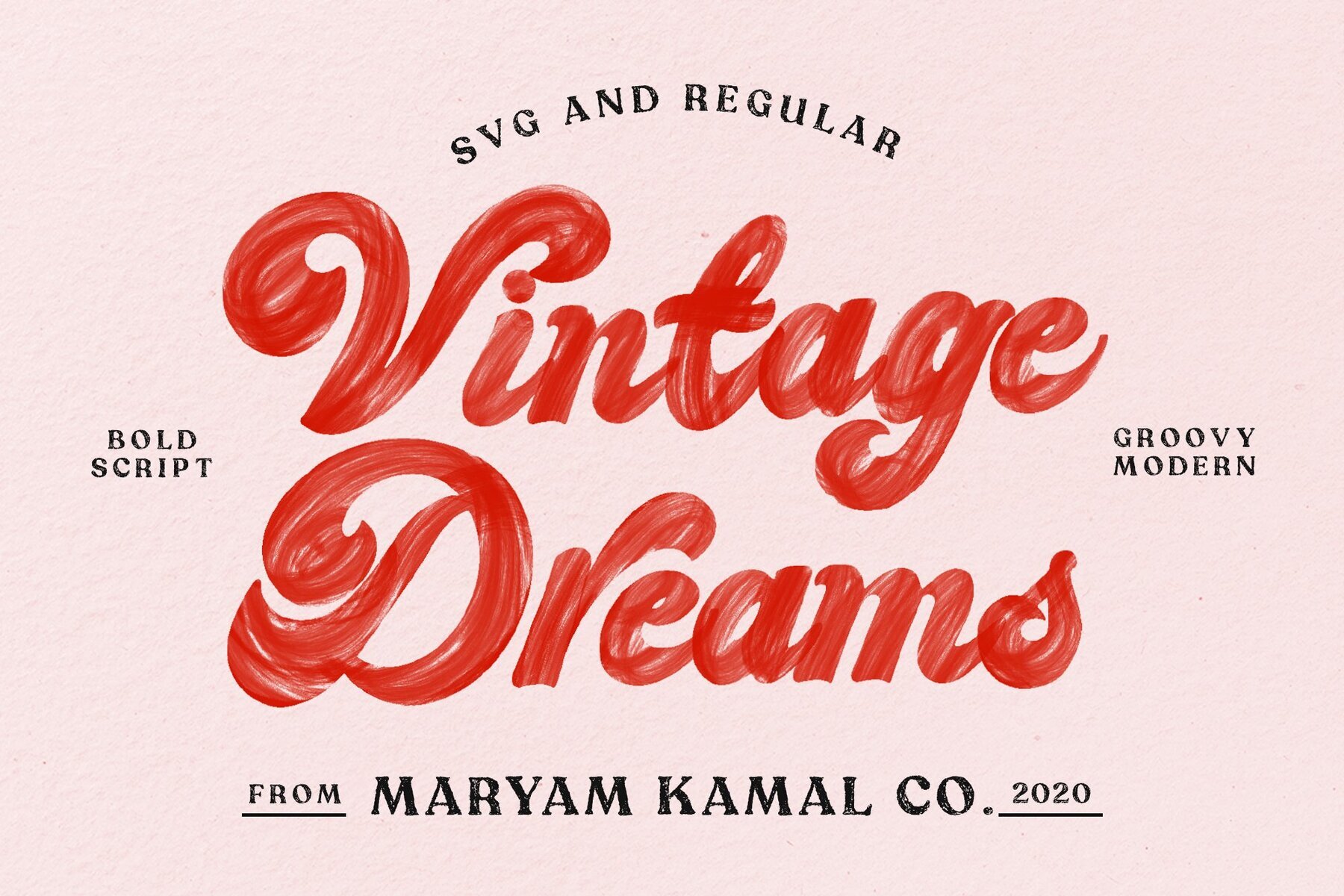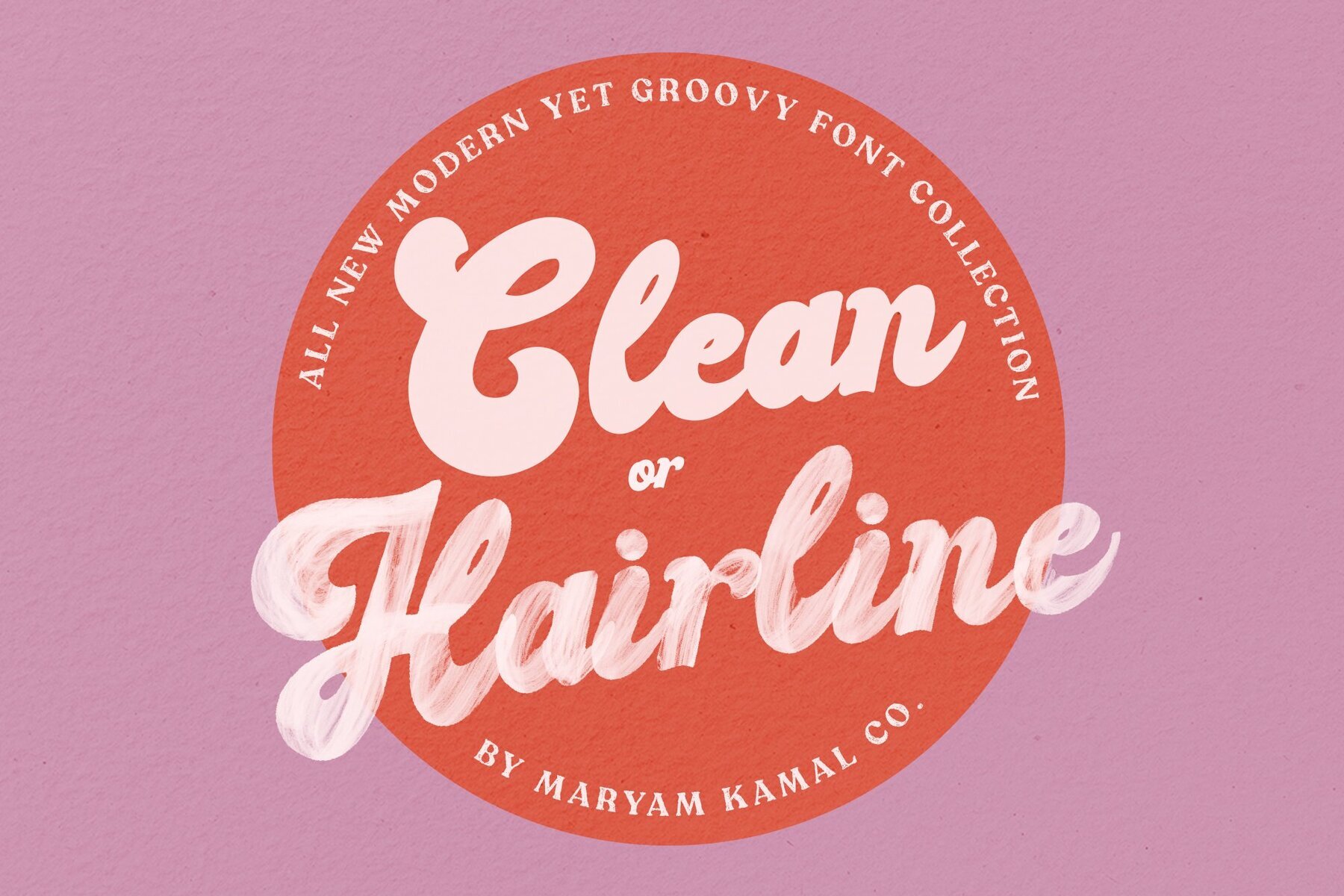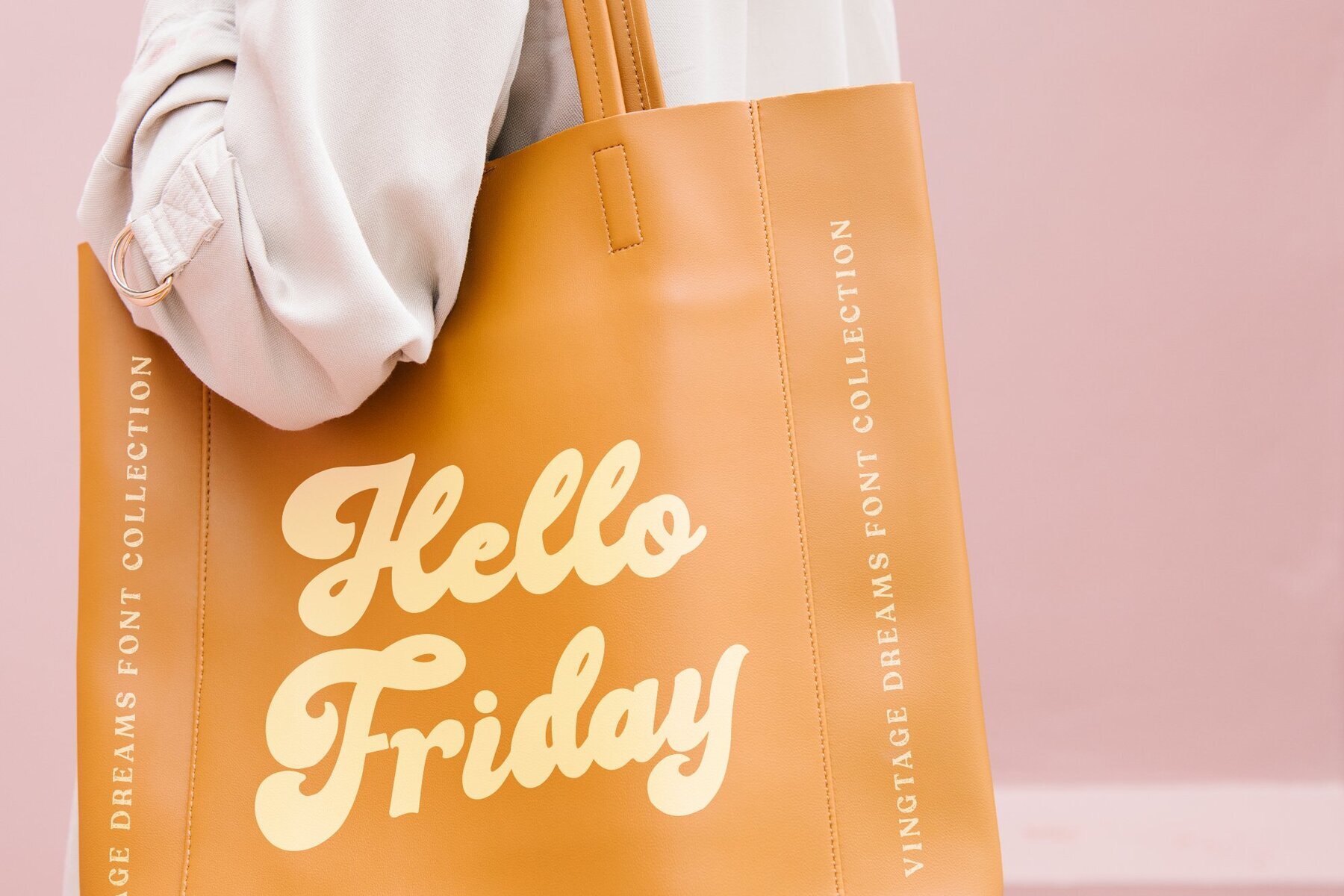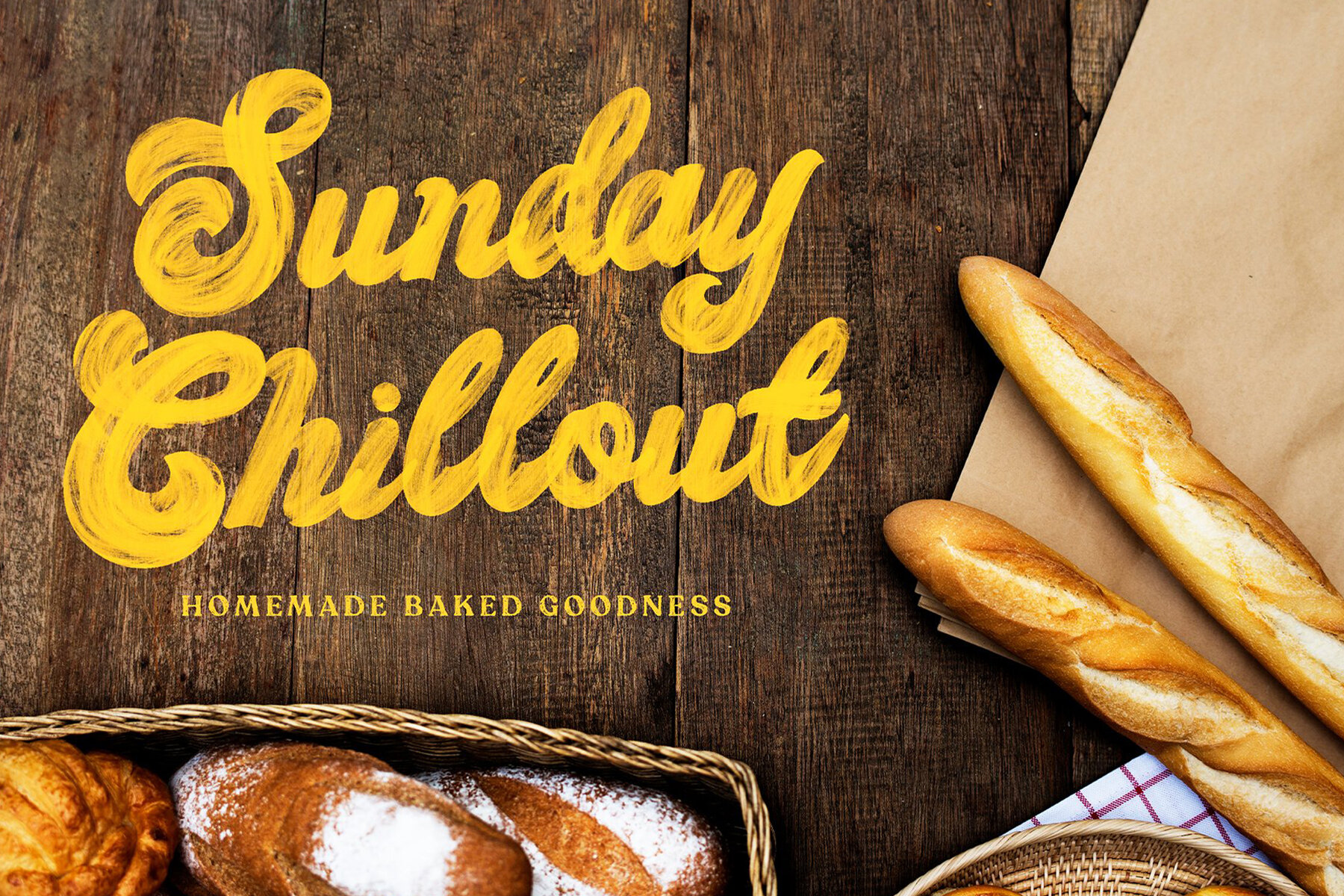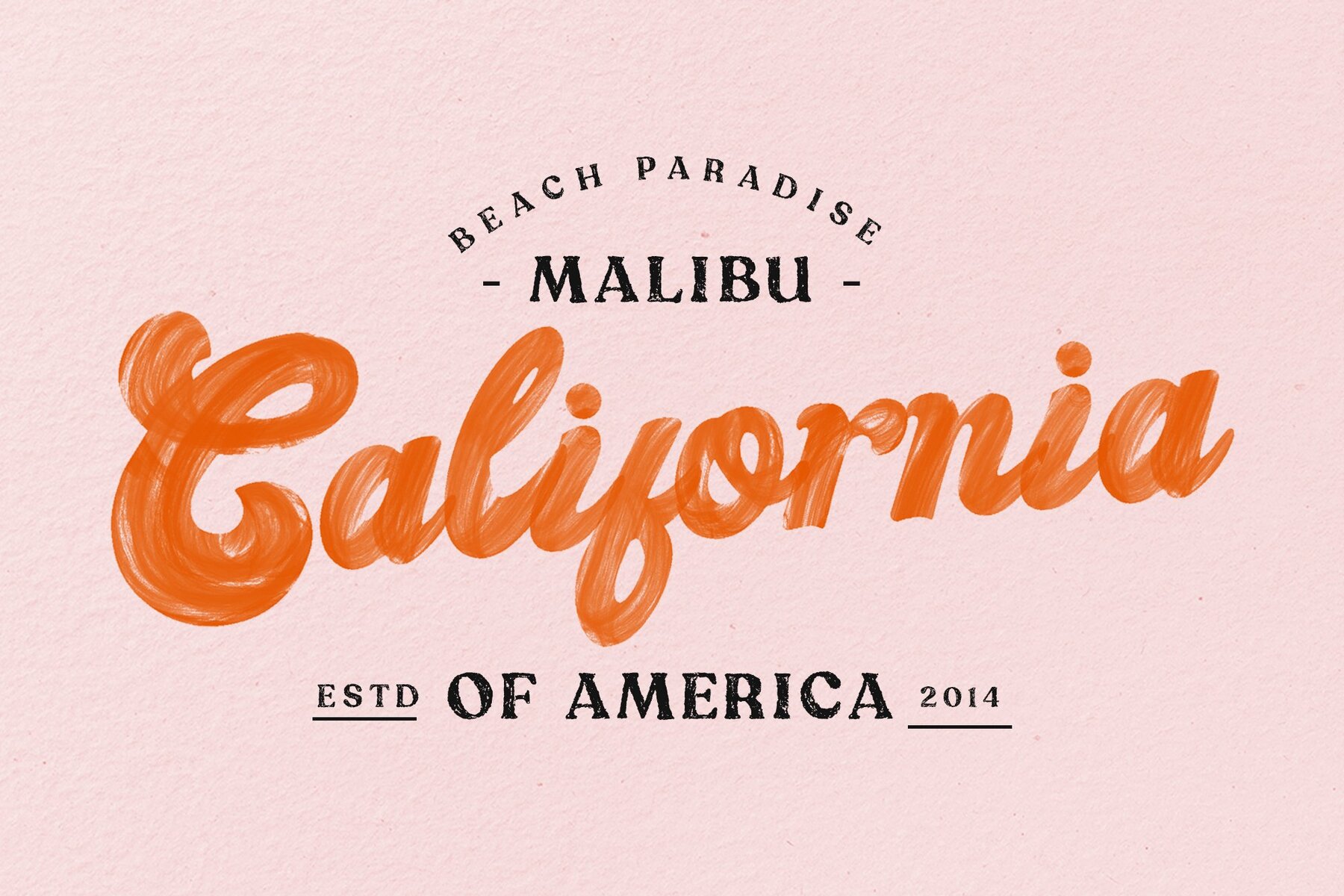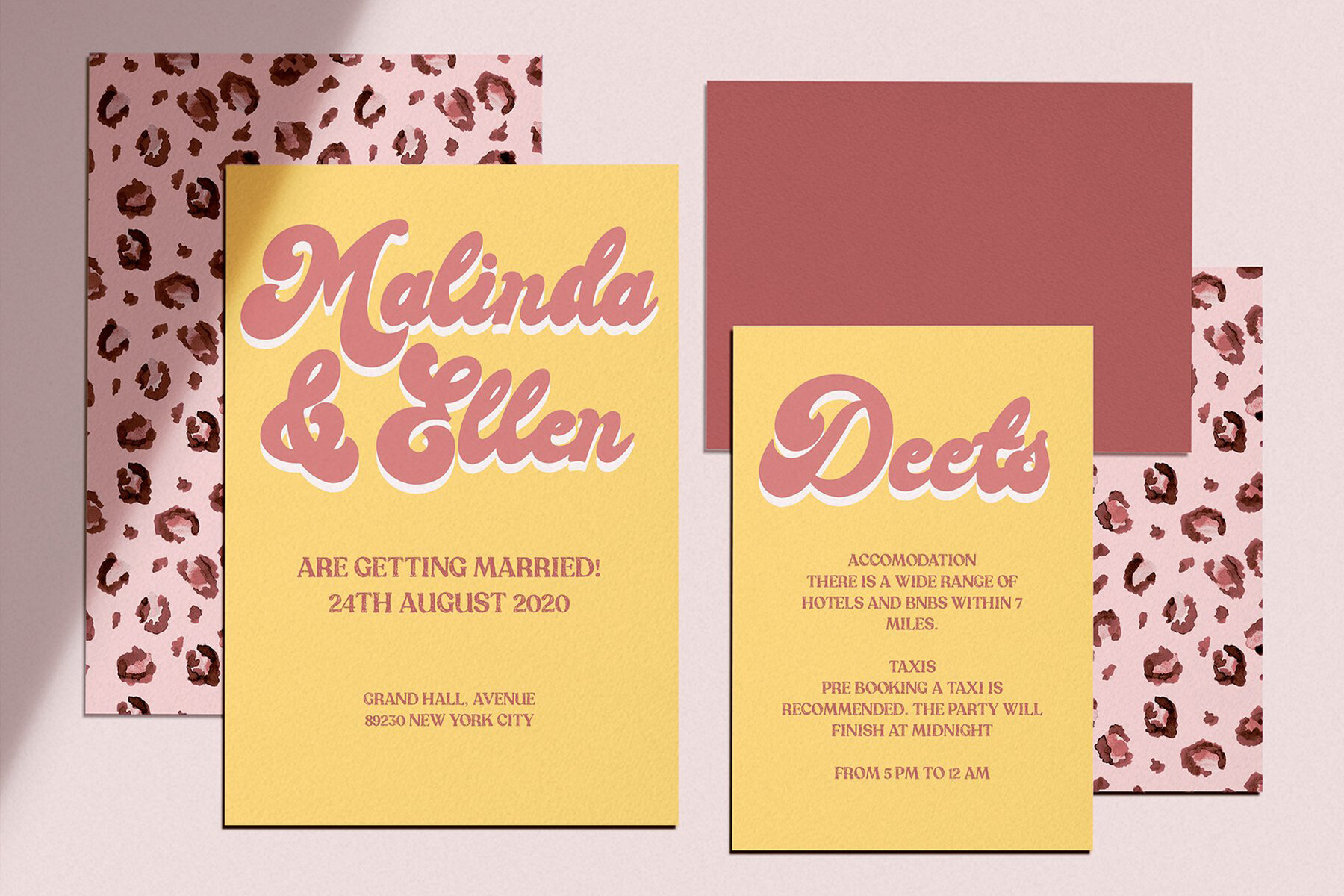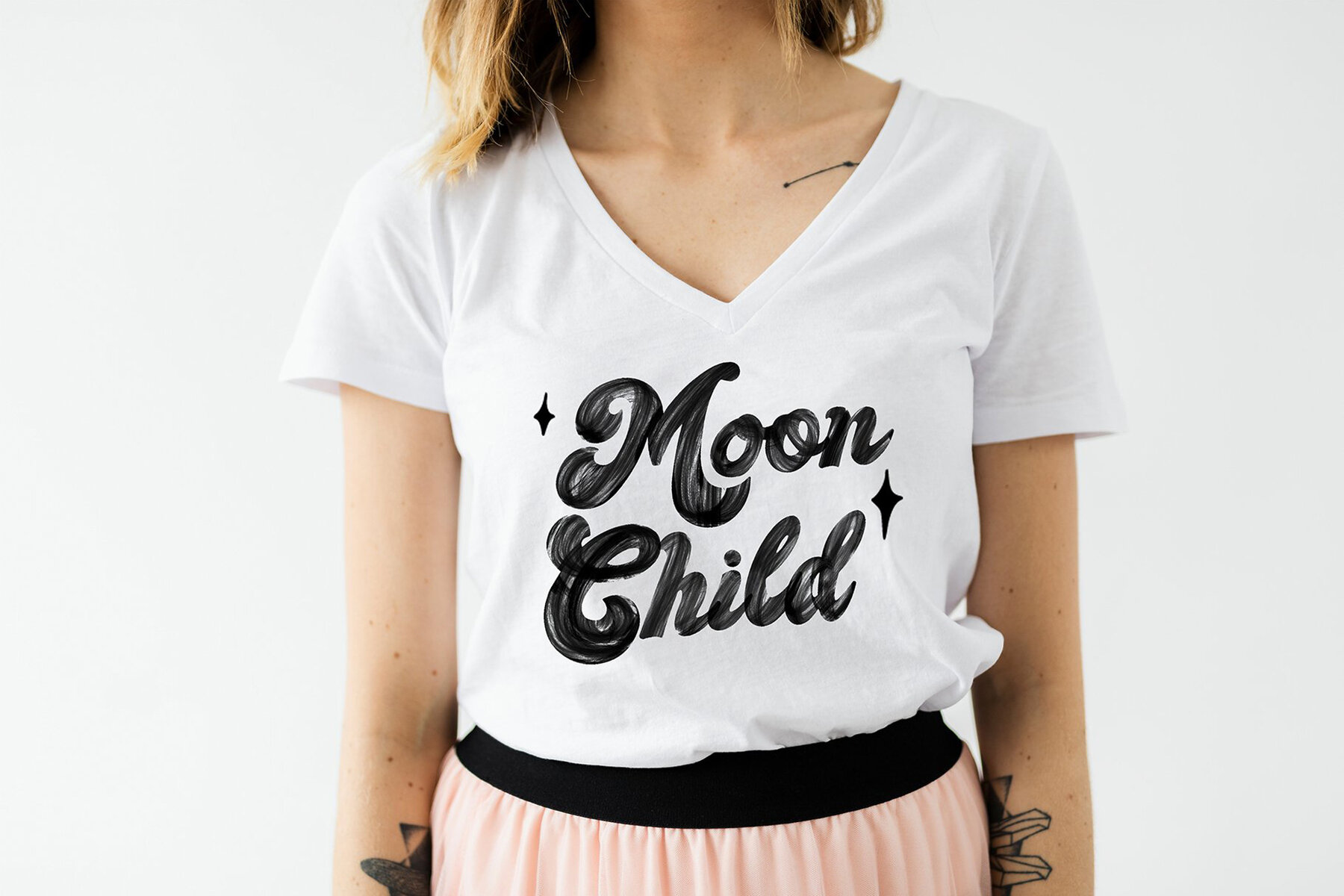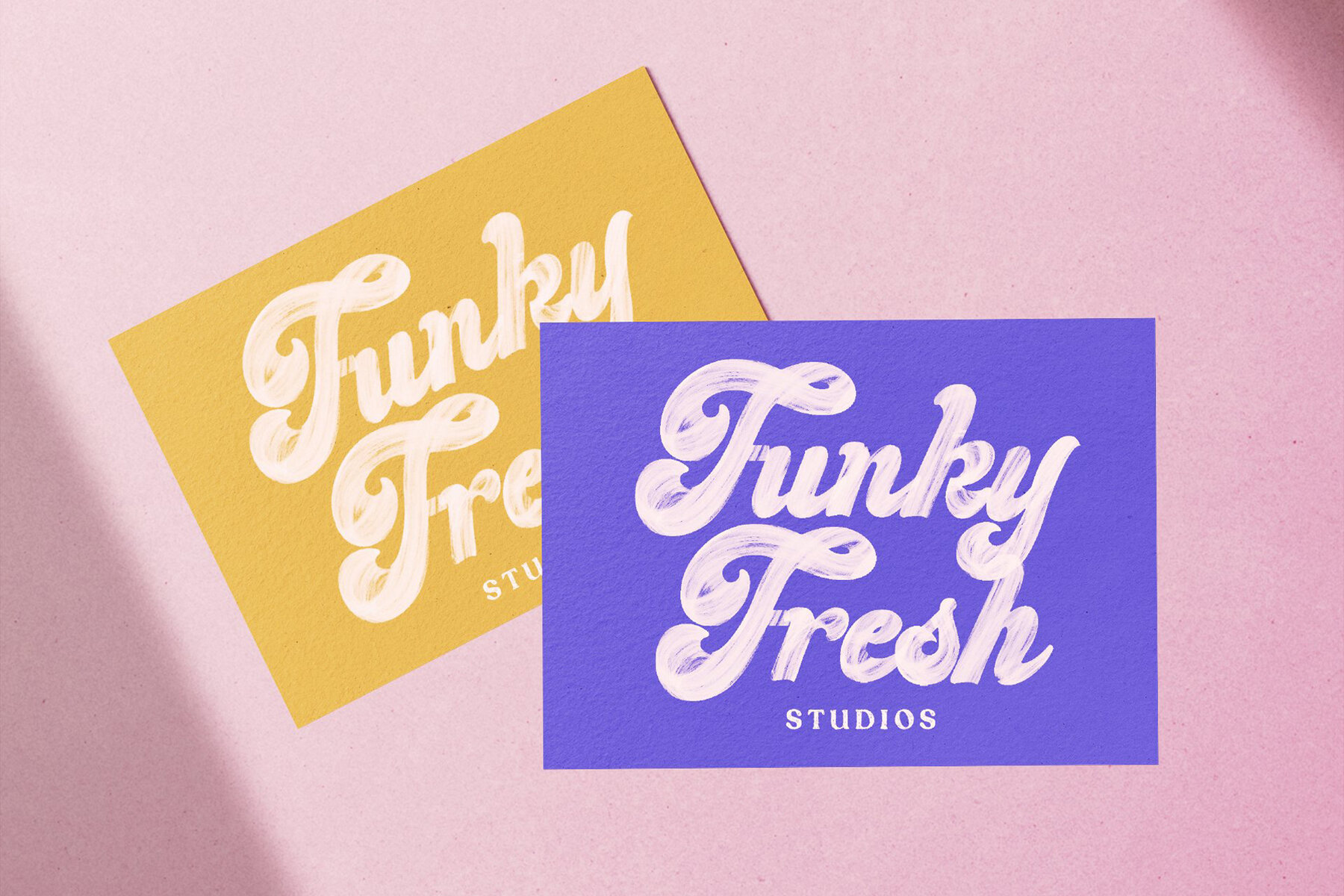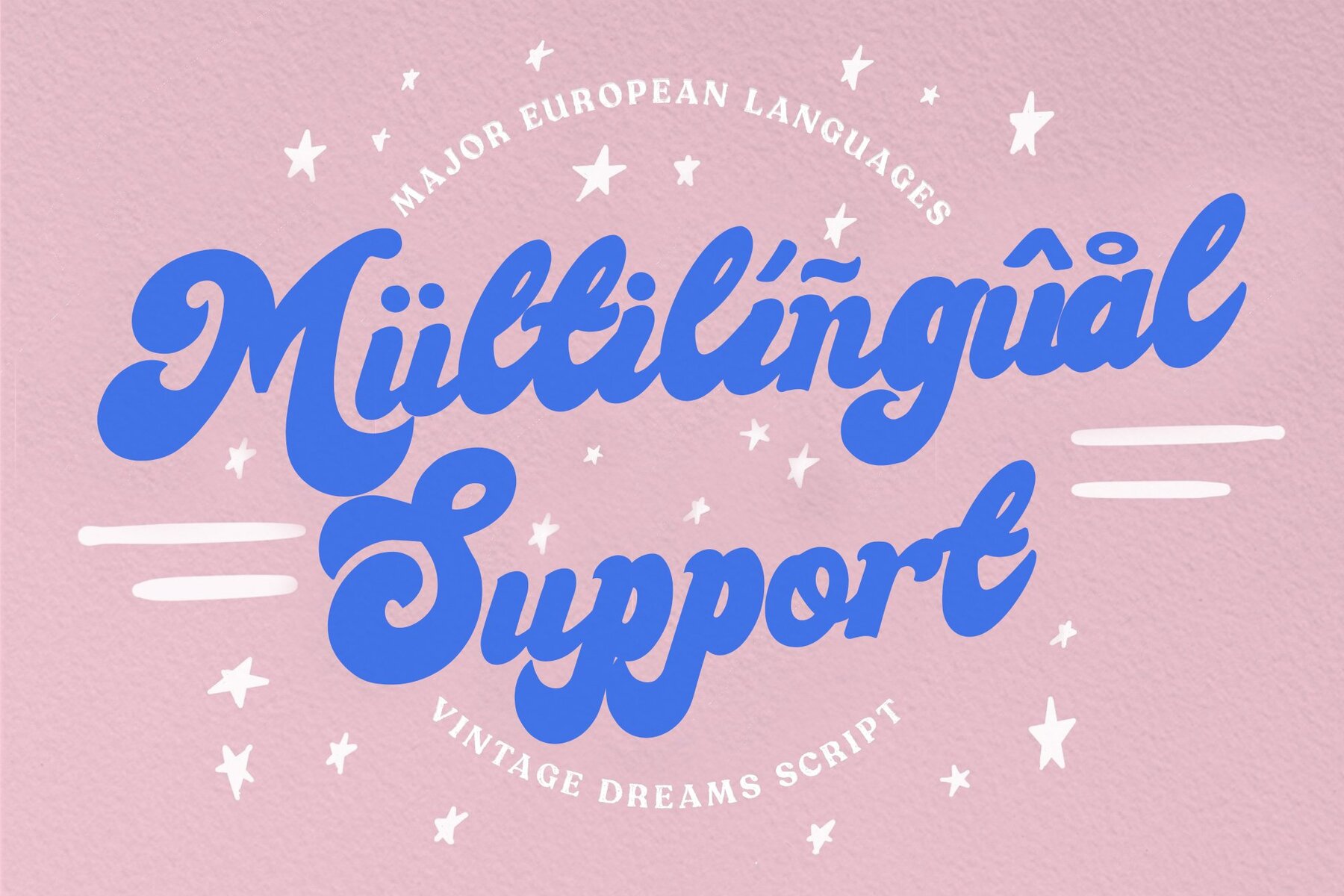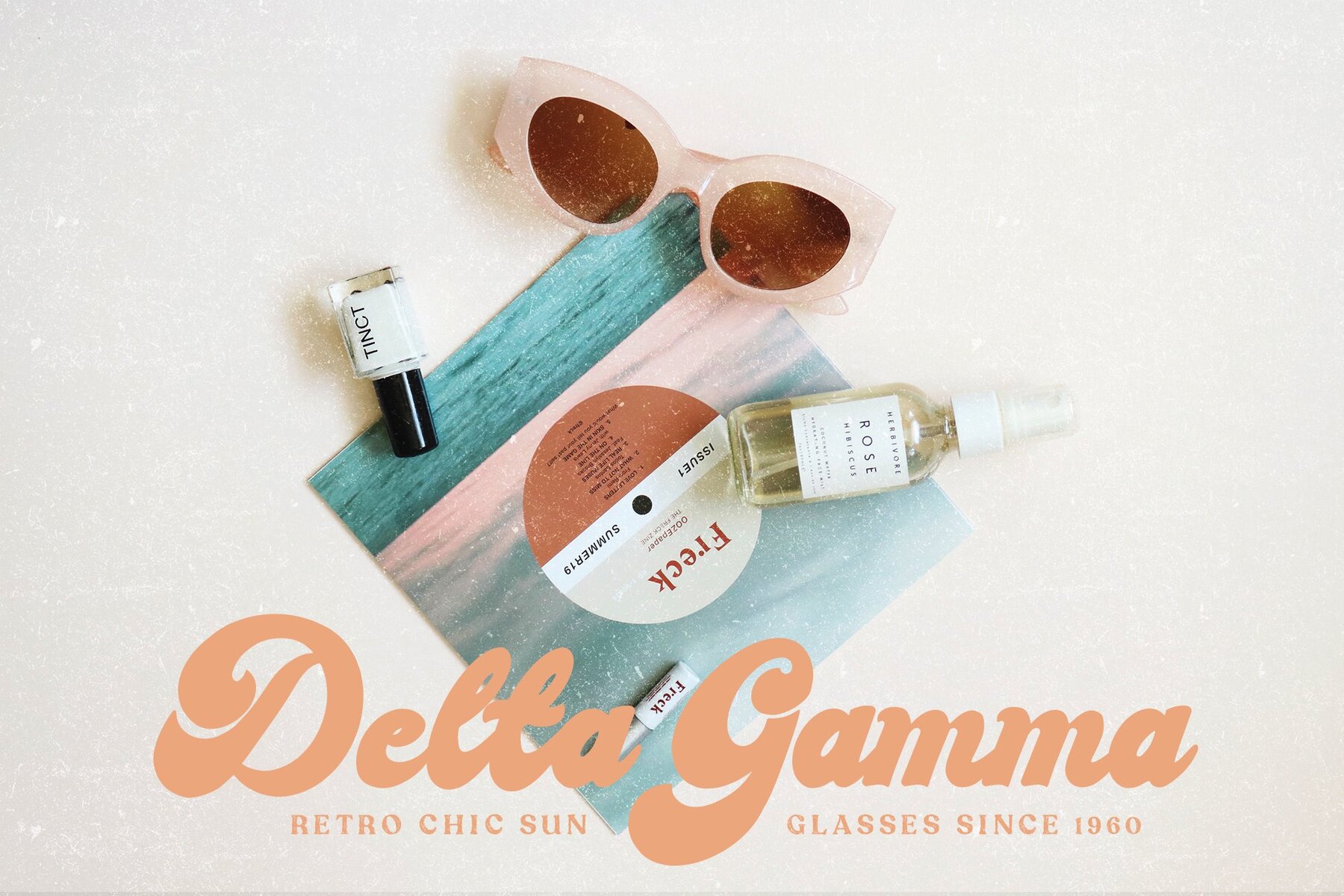
Vintage Dreams Font
Vintage Dreams by Maryam Kamal is an innovative font collection that brings a bold, modern script with a groovy touch to your creative projects. Designed for those looking to make a statement, this font is a versatile choice for a wide range of applications. The font includes a comprehensive range of characters, catering to a variety of language needs. SVG fonts are supported by Photoshop CC 2017 (or newer) or Illustrator CC 2018 (or newer), while the regular fonts are compatible with most applications.Vintage Dreams: A Modern Script with a Groovy Flair